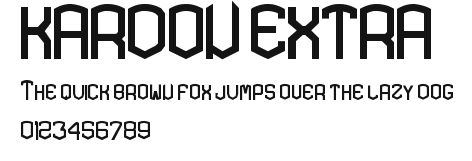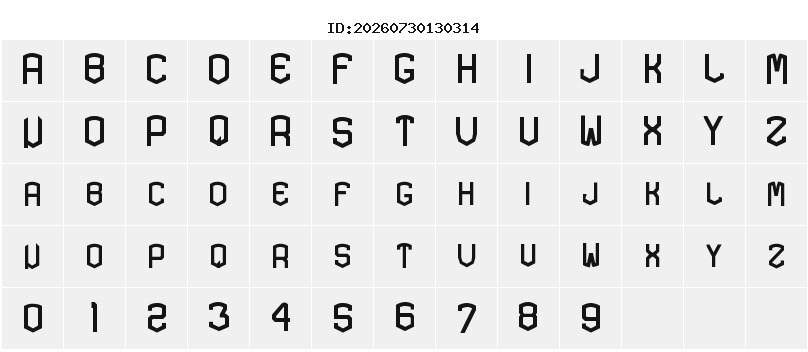
KARDON EXTRA Preview
• Font Name: KARDON EXTRA
• Full Font Name: KARDONEXTRA-Bold
• PostScript Name: KARDONEXTRA-Bold
• Manufacturer: MR.Frukta (Frolov Alexey)
About KARDON EXTRA.ttf
KARDON EXTRA.ttf is a modern, elegant sans-serif font designed for ultimate readability and visual harmony. Perfect for branding, headlines, web design, and print materials.